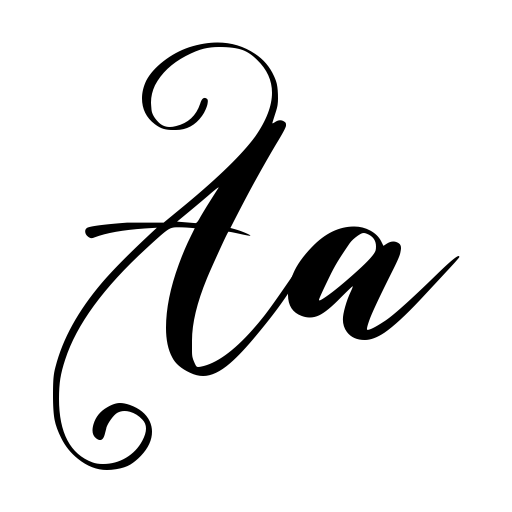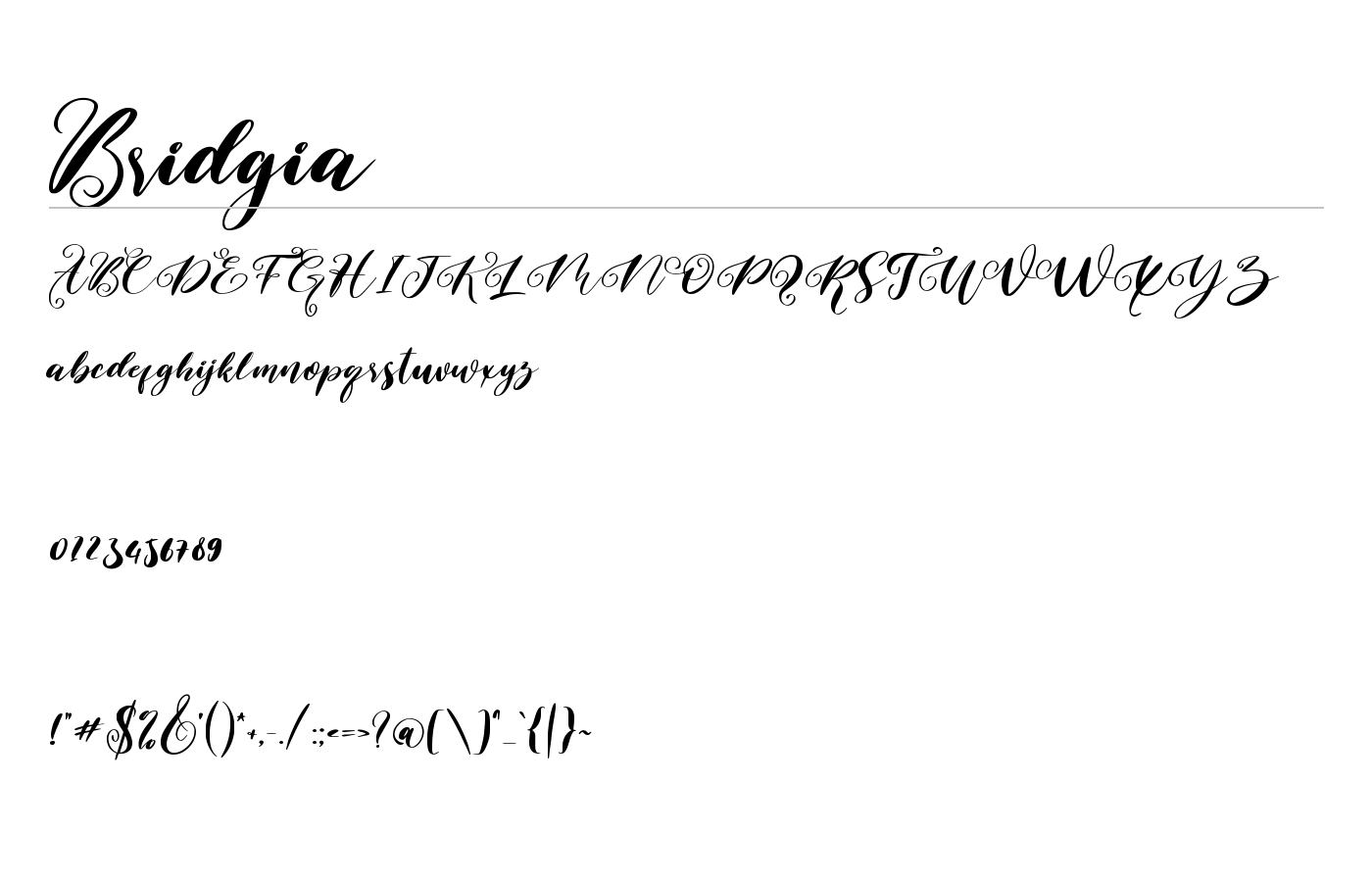
Bridgia is an elegant script font with fluid, calligraphic strokes and graceful swashes that add a touch of sophistication and charm. Its smooth, flowing letterforms and delicate contrasts make it perfect for invitations, branding, and projects that seek a stylish and refined look. This font works wonderfully in designs that require a sense of luxury and personal flair, such as wedding stationery, fashion labels, and upscale packaging.
Bridgia Font
About Bridgia Font
| Font family | Bridgia Font |
| Designer | Aldedesign 2020 (Alde Saputro) |